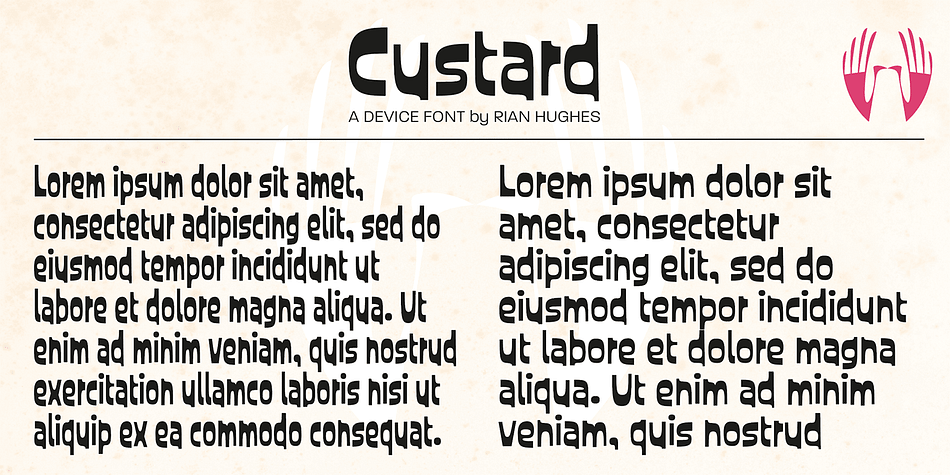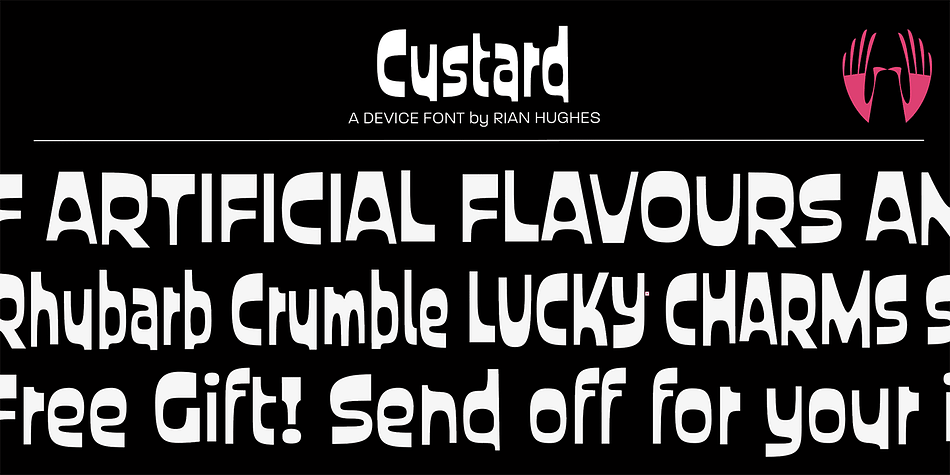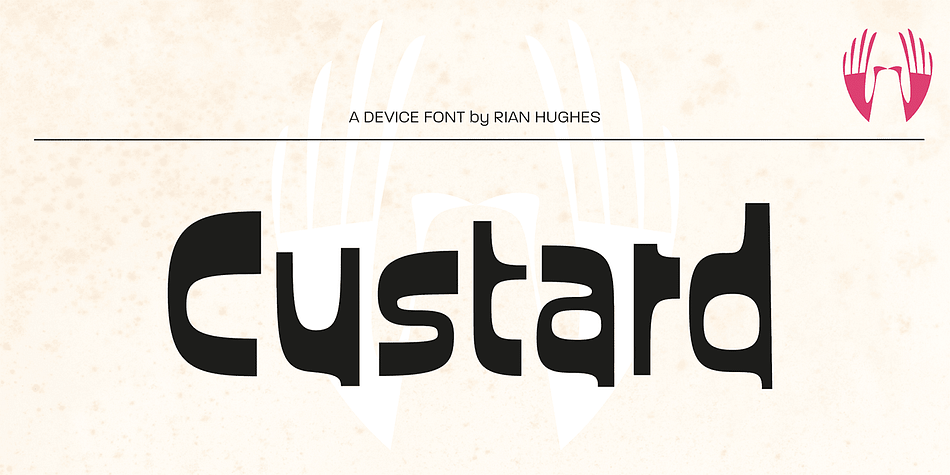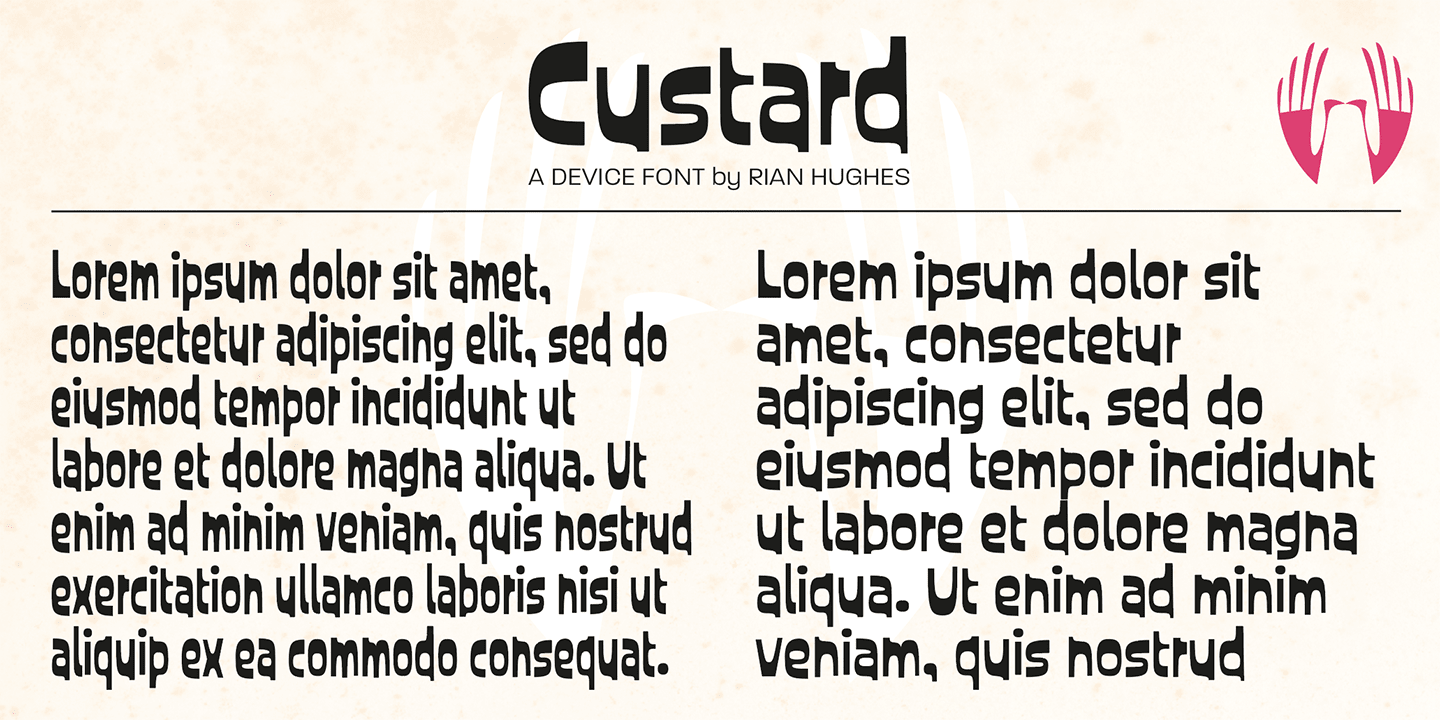
Designed by Rian Hughes, Custard is a hand display font family. This typeface has two styles and was published by Device.
Playful and funky. The ideal choice for candy wrapping, teen magazines, toy packaging and the like.
The reweighted condensed is useful where space is at a premium, and mixing the two weights freely leads to intriguing results.
Use with bright fresh colors for added “bounce”.